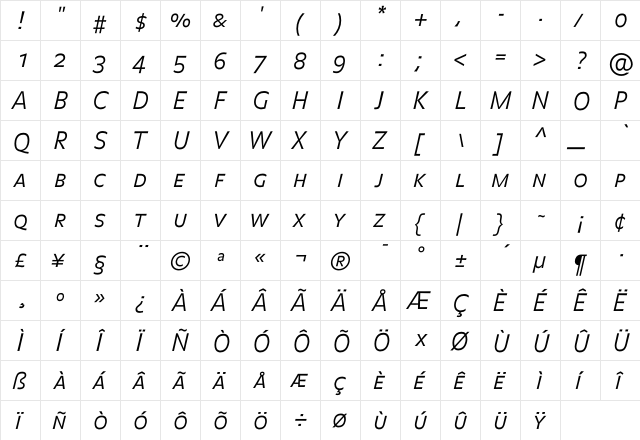
Balance LightCapsItalic Font Preview
Balance LightCapsItalic
Balance LightCapsItalic Font Details
Design Context for Balance Typeface
Balance is a composed and adaptable typeface that performs quietly and consistently across a wide range of design contexts. Its italic angle brings a sense of urgency and motion to the letterforms. Its slender proportions lend an understated elegance to any composition.
Pro Tip: Try Balance for annotation and caption copy alongside an upright companion — the contrast in angle creates a dynamic but ordered typographic system.